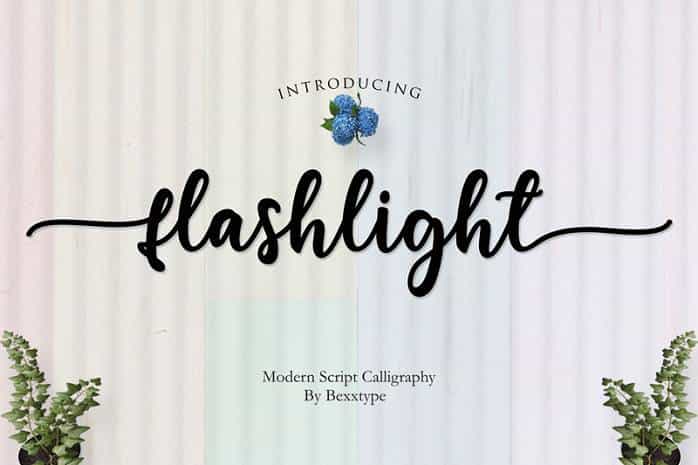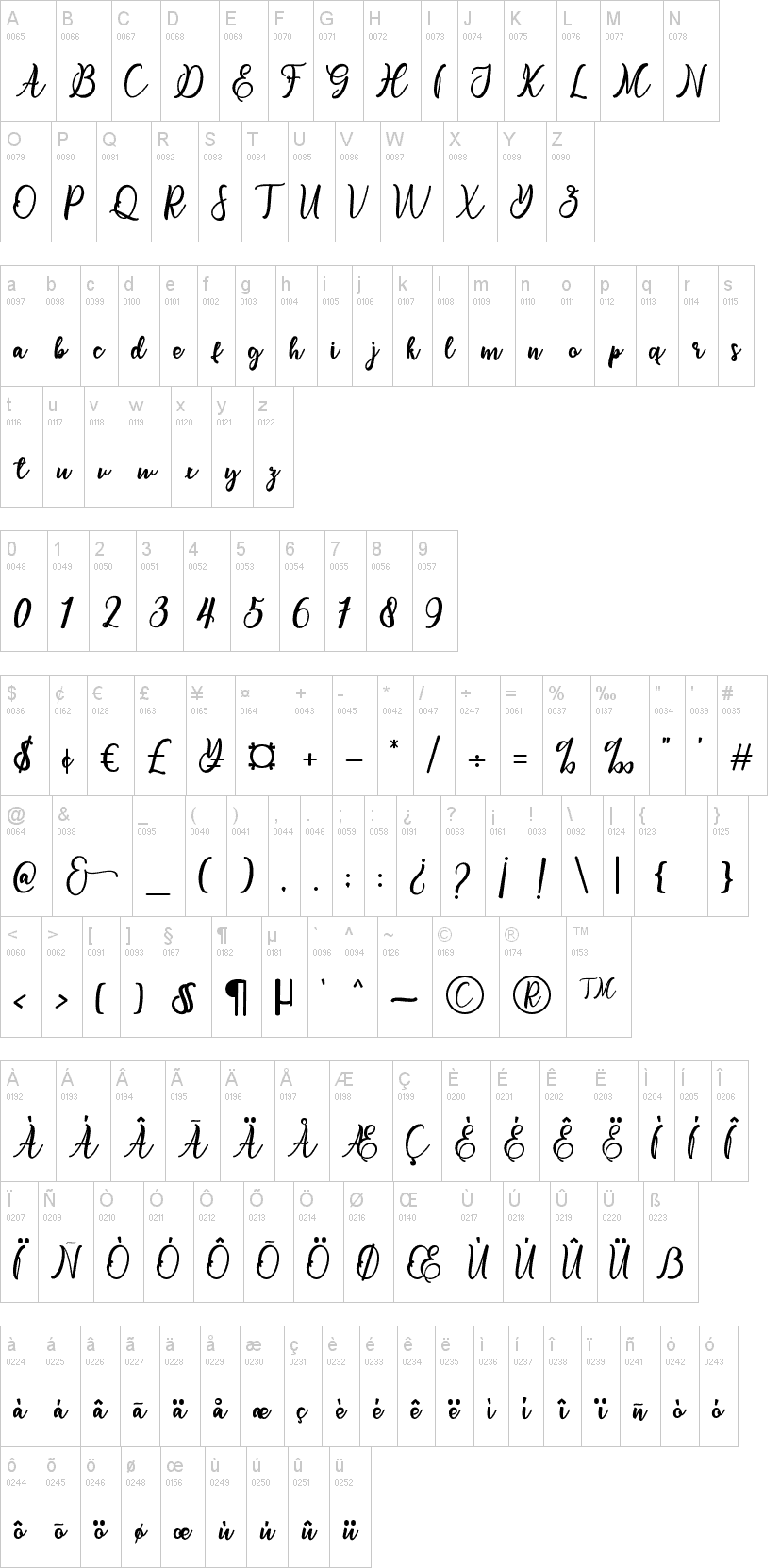
Discover Flashlight Font, part of the Calligraphy collection—a versatile and unique font perfect for adding a personal touch to your projects. Download it for free and enjoy crafting designs with style, from invitations to social media posts. This font is available exclusively for personal use, giving you the freedom to create without limits. Unlock your creativity with Flashlight Font today!
Flashlight is a nice Calligraphy font that has been designed by Bexxtype, is available for free download and personal use. The free version gives all upper case and lower case letters and a handful of special characters.